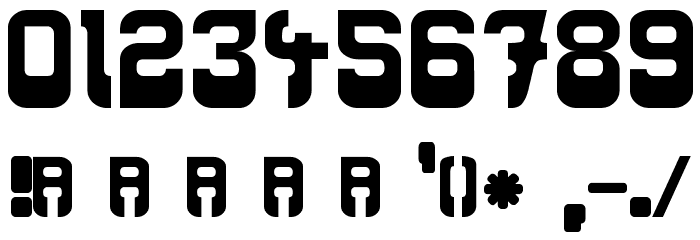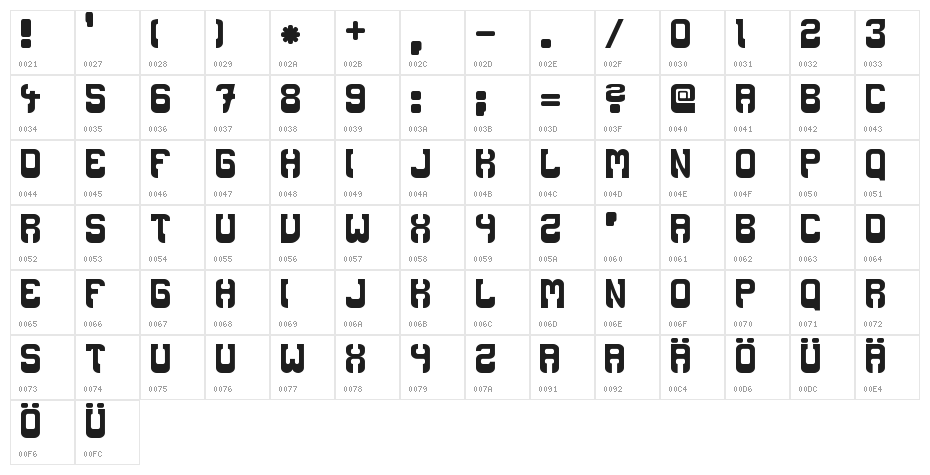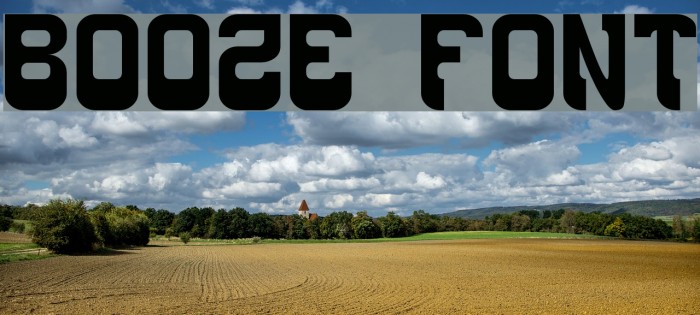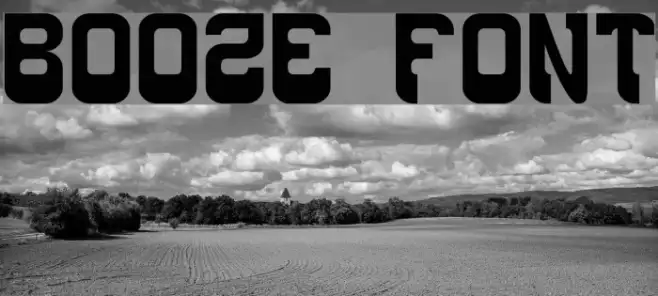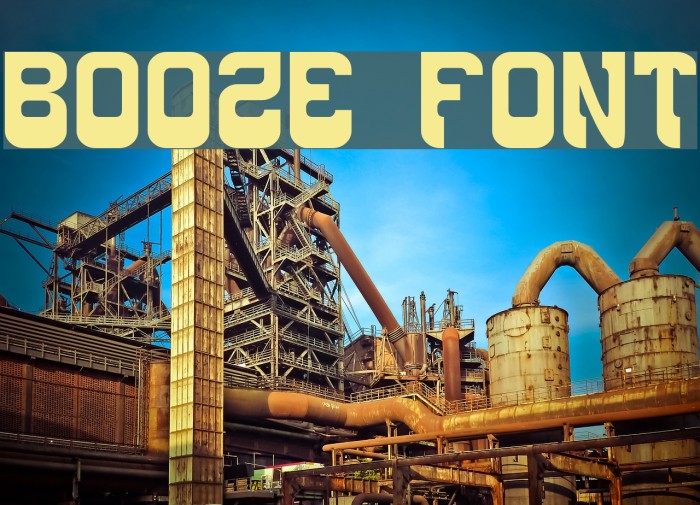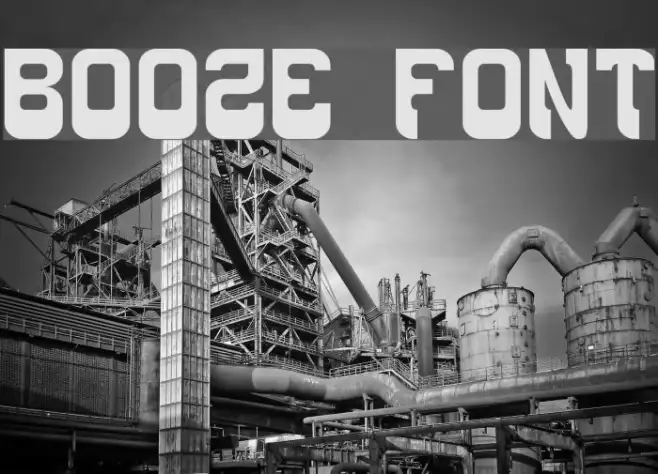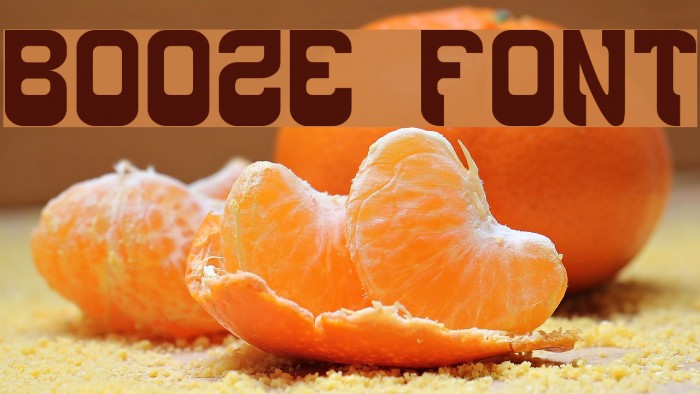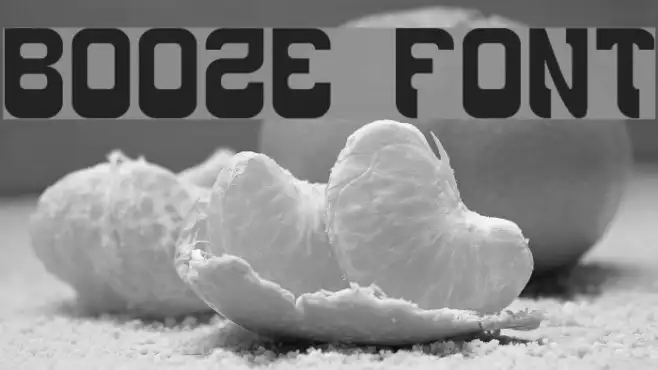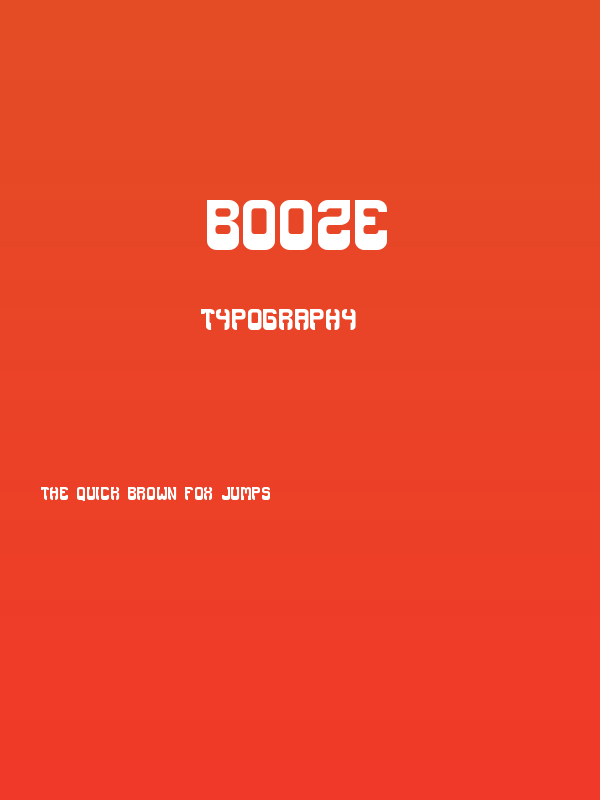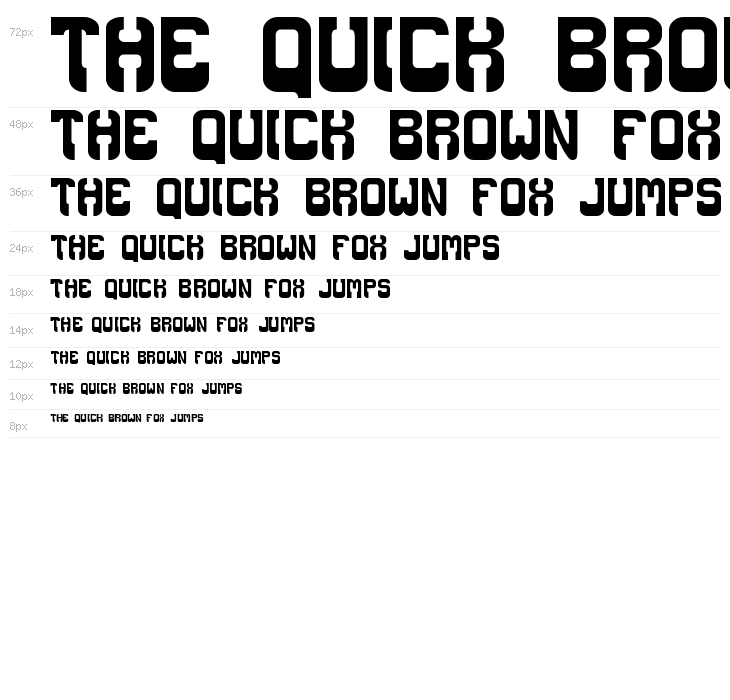
Booze Font
Booze Description
This font features a bold and geometric design with a strong presence. The characters are constructed with thick, block-like shapes, giving them a robust and industrial feel. The uppercase and lowercase letters share a consistent style, with rounded edges and uniform stroke widths. The numbers and special characters maintain this cohesive look, making the font suitable for impactful and attention-grabbing designs. Its unique style is both modern and slightly retro, reminiscent of digital or mechanical aesthetics.